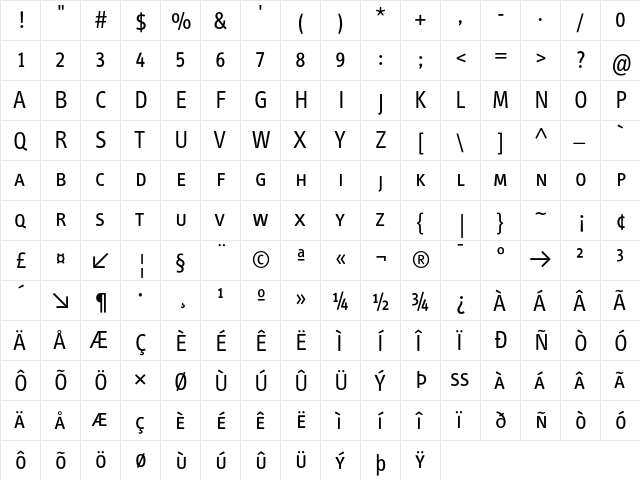
InfoText NormalCaps
Design Context for InfoText Typeface
InfoText is a composed and adaptable typeface that performs quietly and consistently across a wide range of design contexts.
Pro Tip: Pair InfoText with a font of contrasting weight or personality to build a more expressive typographic hierarchy.